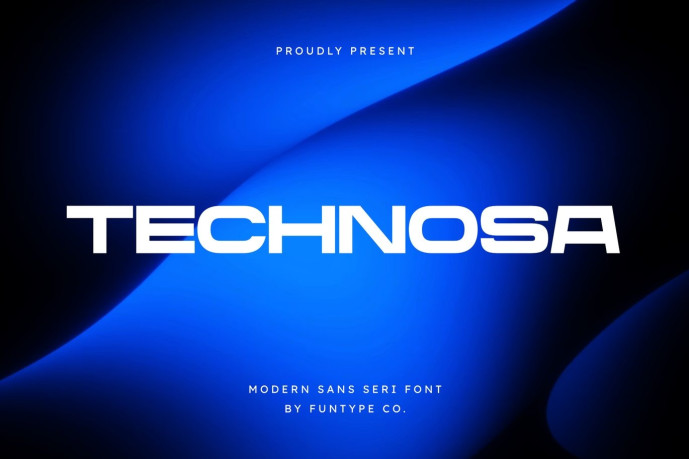
Technosa – Modern Wide Tech Sans Serif Font
Designer: Achmad Iswanjaya
Technosa is a bold, high-impact, and modern wide tech sans serif font, engineered to bring an authoritative futuristic presence, expansive geometric weight, and clean cybernetic aesthetic to contemporary display layouts. Featuring an expanded horizontal profile, smooth ergonomically curved inner terminals, and solid linear block structures, Technosa introduces a premium high-tech editorial, artificial intelligence, automotive, and prominent digital media identity designed to claim absolute visual focus.
This font family is the ultimate choice for creative directors, digital gaming publishers, and agency brand designers looking to implement a robust typography identity for major text hierarchies. Whether you are developing bold corporate enterprise logotypes, science fiction book layouts, tech-lifestyle branding, cinematic movie title sequences, esports presentation headers, or prominent digital web banners, Technosa stands out with supreme legibility and structural confidence.
Modern Wide Sans Structure: Optimized with an expanded horizontal footprint for solid, heavy, and high-impact title compositions.
Ergonomic Tech Geometry: Bold block lines with smooth inner curved details crafted to secure instant audience attention.
Premium Cybernetic Aesthetic: Clean linear strokes balanced with futuristic geometric contours, perfect for cutting-edge corporate identities and digital gaming media networks.